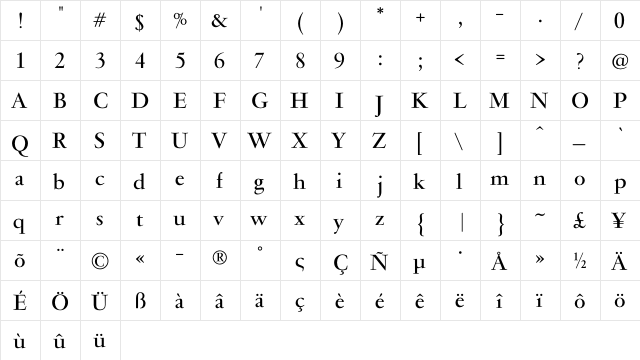
PF Garamond Classic Bold
Design Context for PF Garamond Classic Typeface
PF Garamond Classic wears its vintage influences proudly, with letterforms that recall mid-century signage, classic packaging, and nostalgia-driven design. Its bold stroke weight gives it real presence on the page.
Ideal for diner signage, record shop branding, 70s/80s-themed projects, and heritage product labels.
Font Pairing: Combine PF Garamond Classic with a simple slab or neutral sans — period-accurate companions reinforce the vintage feel without competing for attention.
Pro Tip: Lean into PF Garamond Classic's period character by pairing it with aged paper textures, muted colour palettes, and vintage illustration styles.